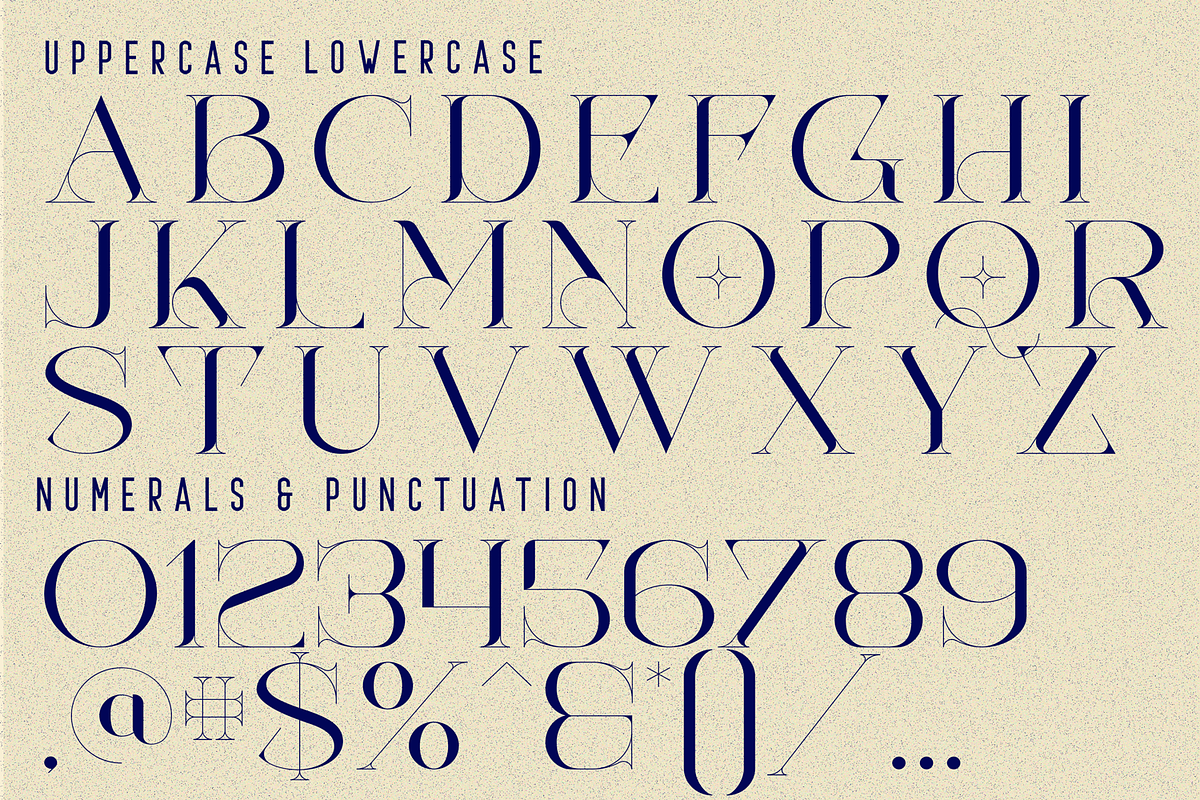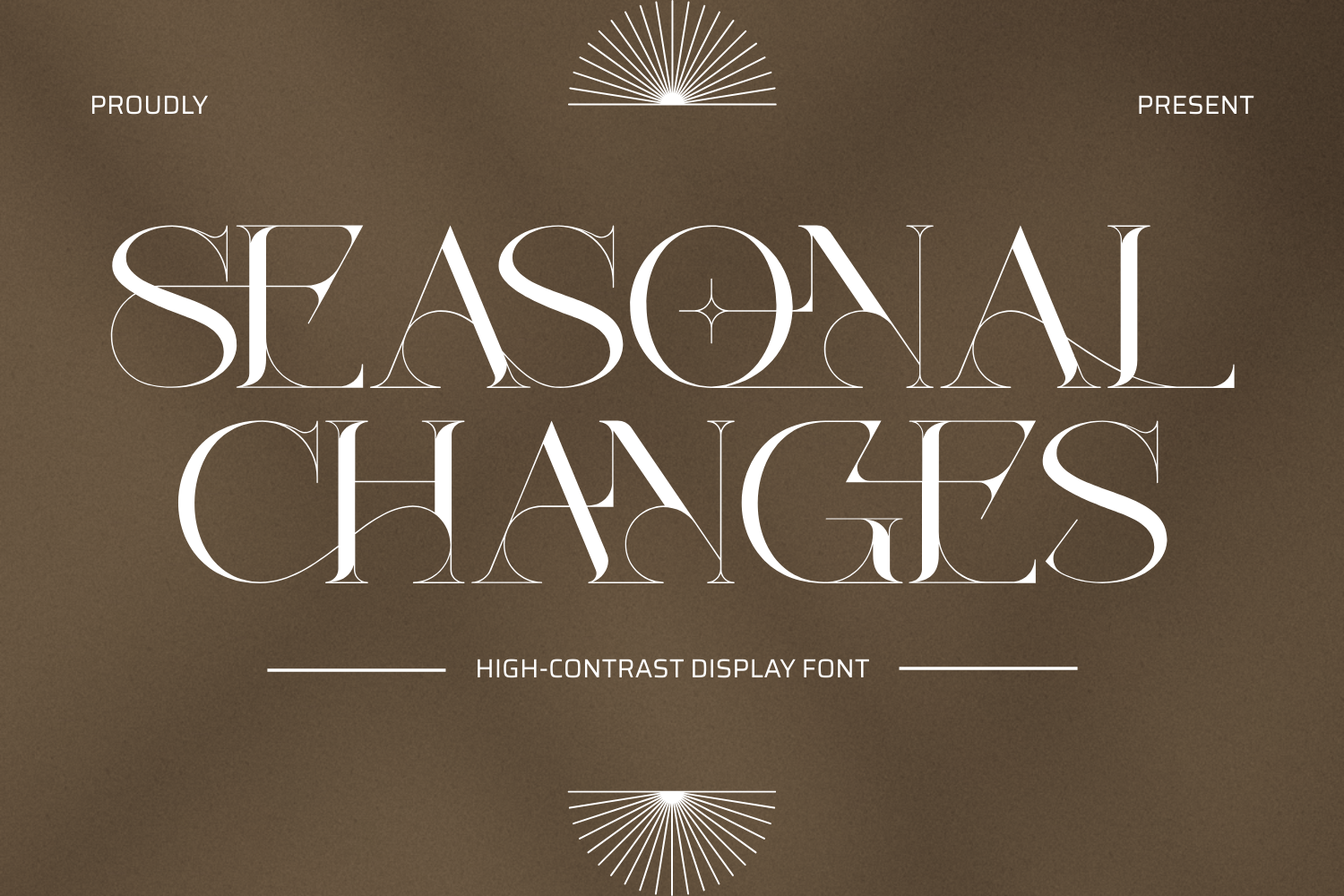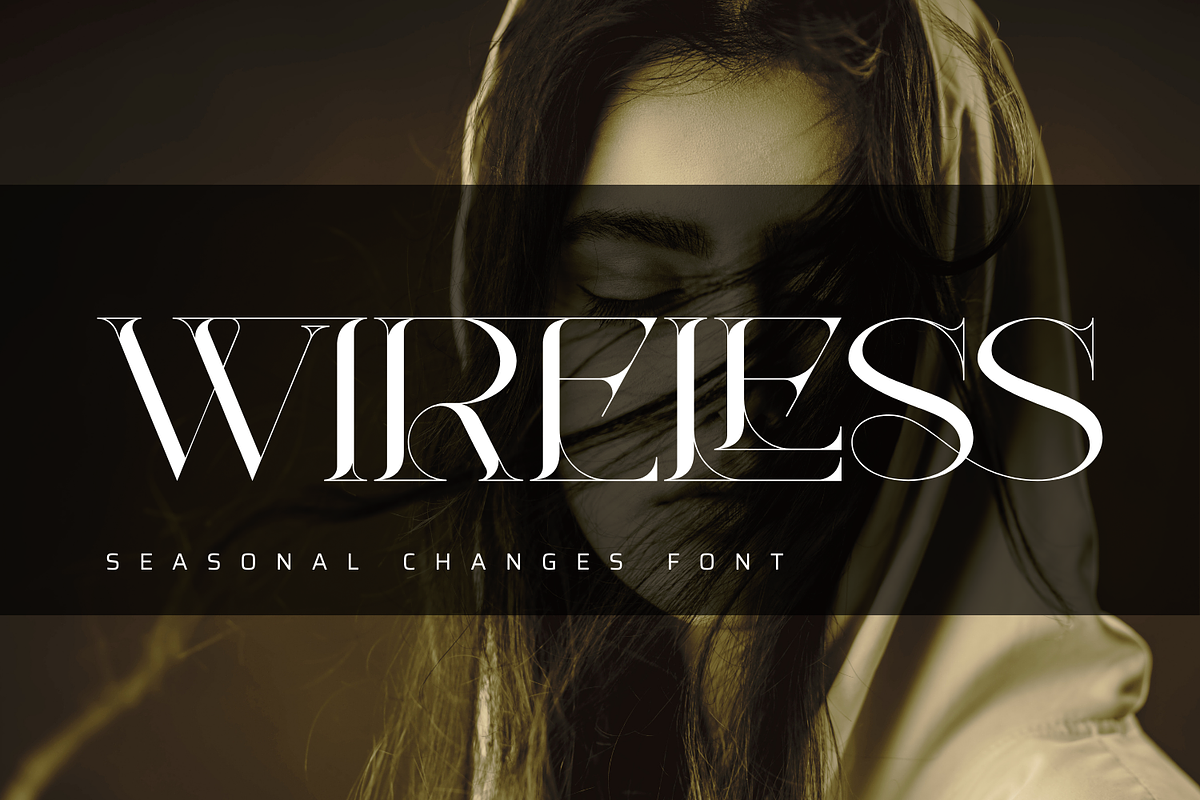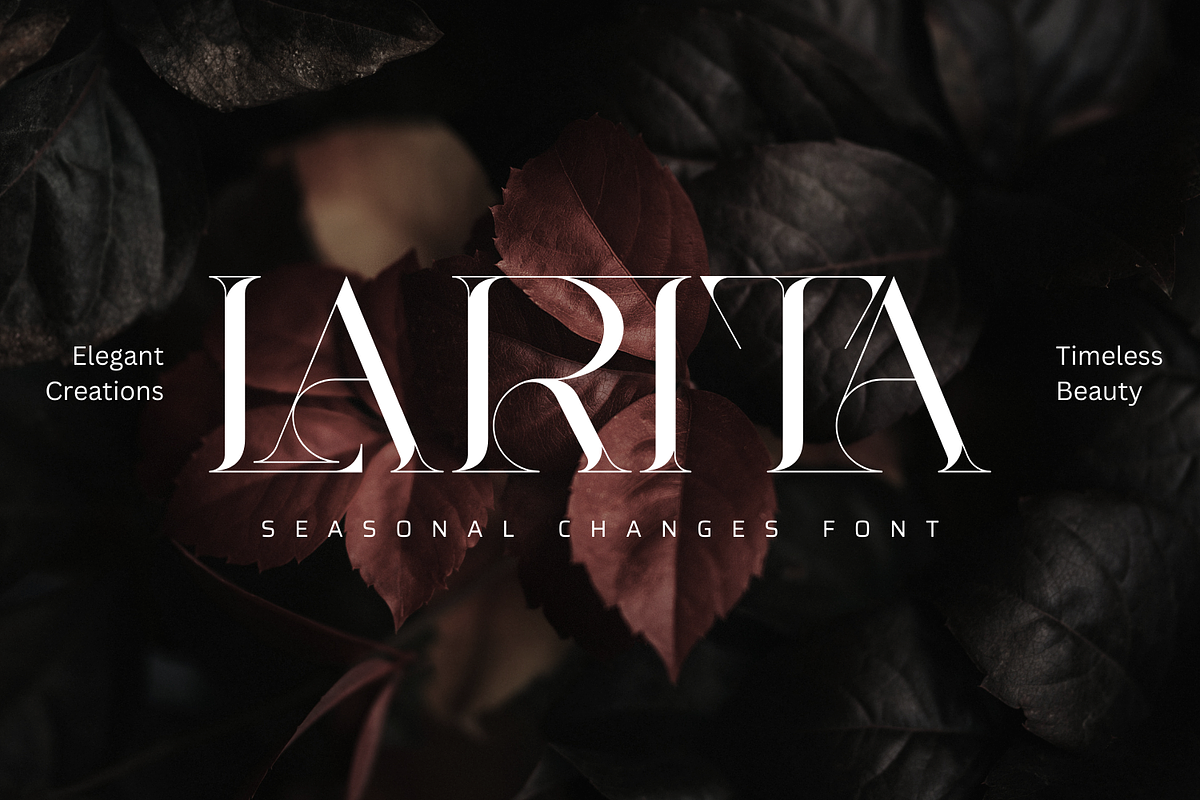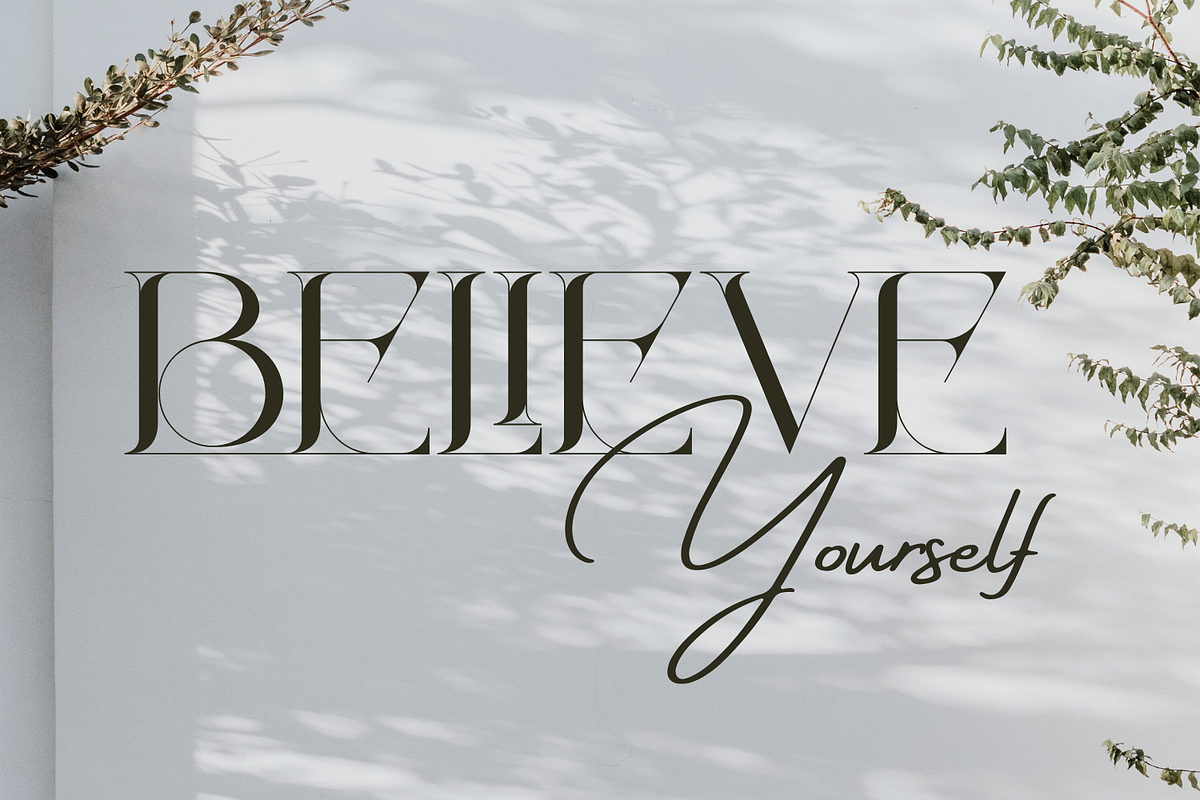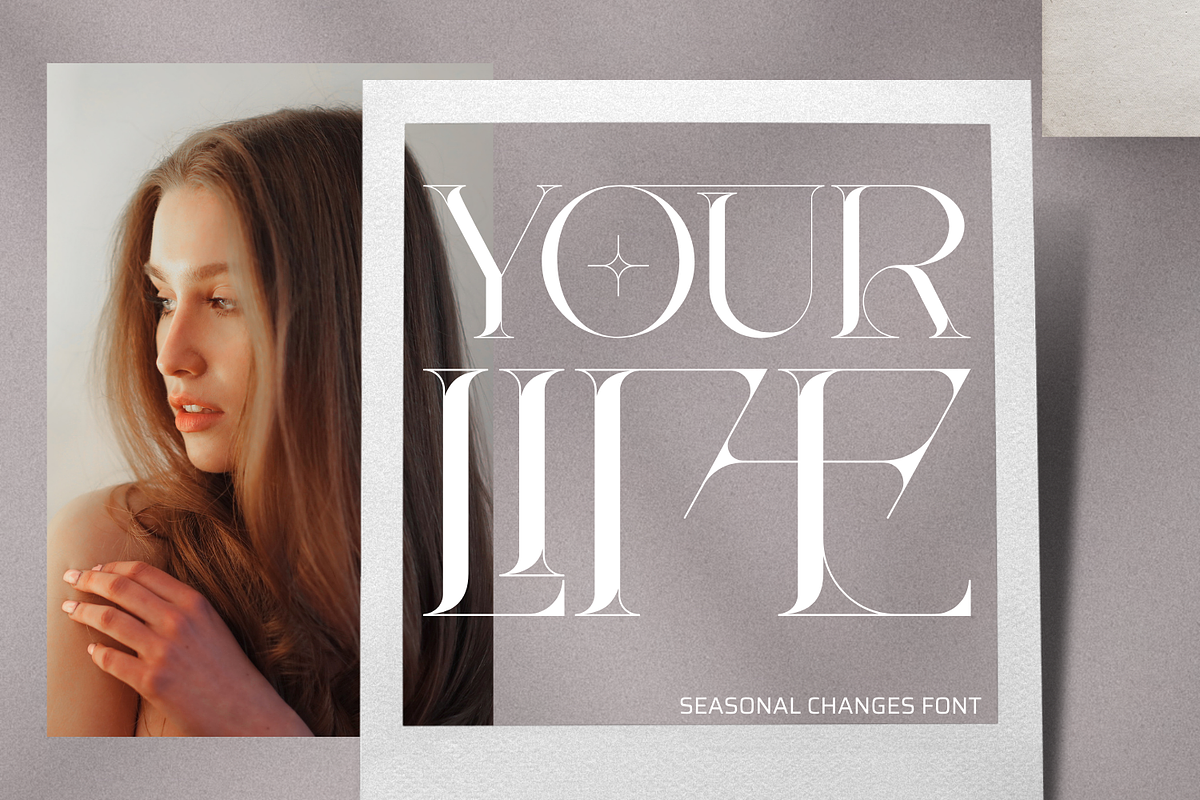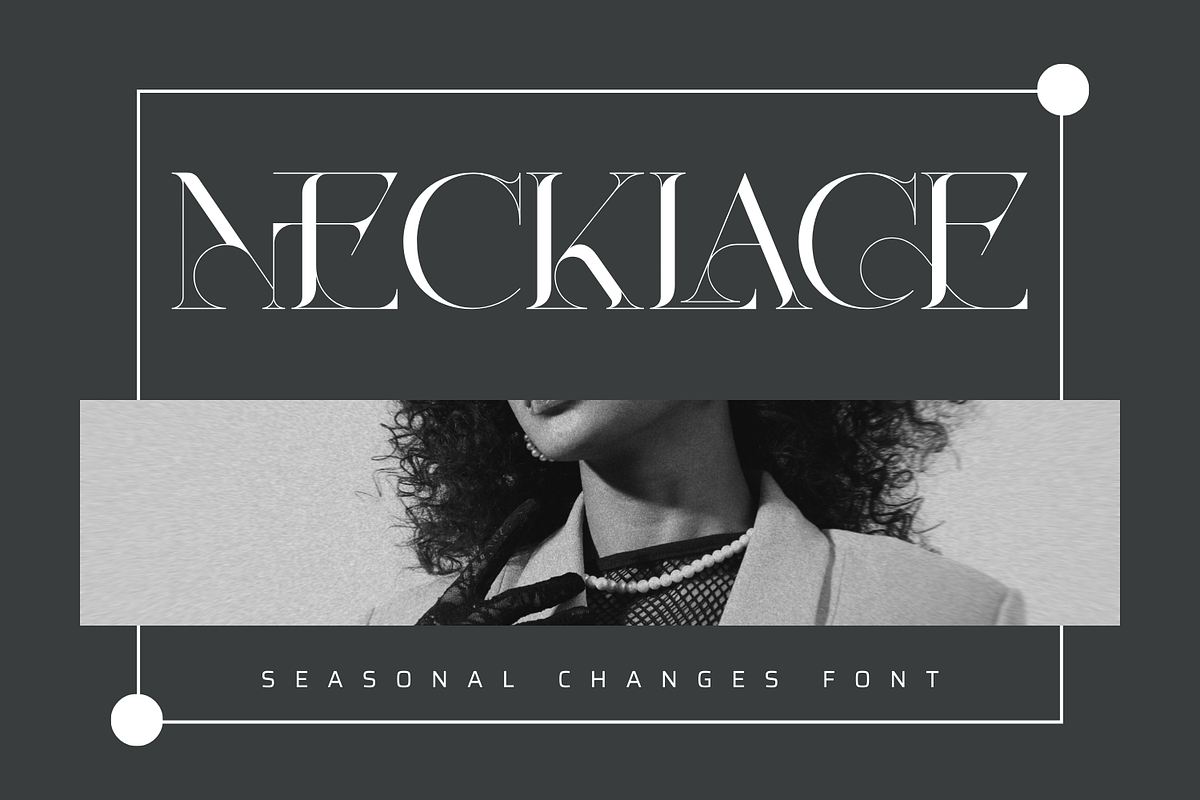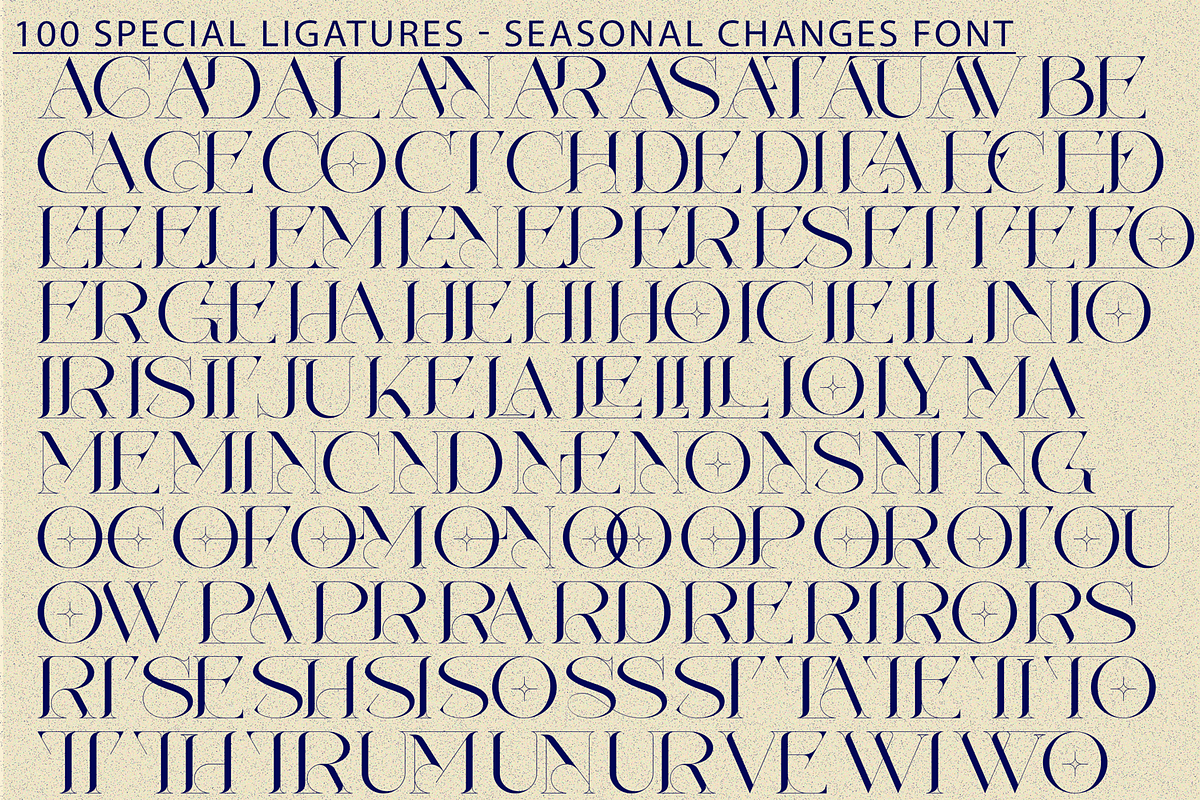
Seasonal Changes - Luxury Font
Seasonal Changes - Luxury Font is a modern high-contrast serif display typeface inspired by classic Didone elegance and contemporary editorial design. Featuring dramatic thick-to-thin transitions, refined proportions, and delicate ornamental curves, this typeface delivers a luxurious and sophisticated presence. The elegant letterforms are enhanced with subtle geometric details that add depth and character without overpowering readability. Seasonal Changes is perfect for fashion editorials, luxury branding, perfume packaging, high-end logos, and premium design projects that demand timeless refinement.
🔤Features:
- Uppercase Letters
- Around 100 Special Ligatures & Alternates
- Accented Characters for multilingual support
🔤About 100 ligatures combined with Stylistic Alternates Font:
ac ad al an ar as at au av be ca ce ch co ct de di ea ec ed ee el em en ep er es et fe fo fr ge ha he hi ho ie ic il in io ir is it ju ke la le li ll lo ly ma me mi nc nd ne ng no nt ns oc of om on oo op or ot ou ow pa pr ra rd re ri ro rs rt se sh si so ss st ta te th ti to tr tt um un ur ve wi wo